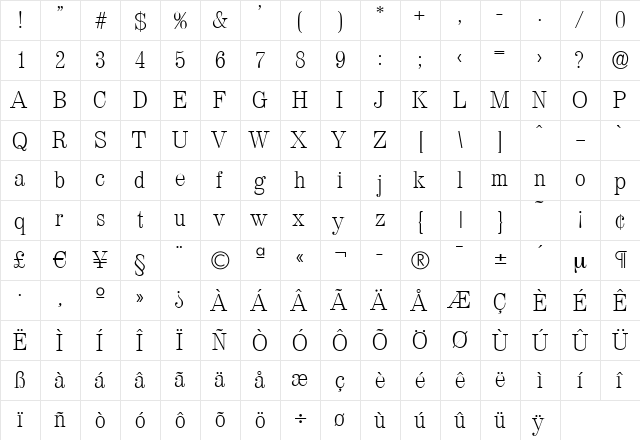
NormanBecker-ExtraLight Regular
Design Context for NormanBecker-ExtraLight Typeface
NormanBecker-ExtraLight is a composed and adaptable typeface that performs quietly and consistently across a wide range of design contexts. Its slender proportions lend an understated elegance to any composition.